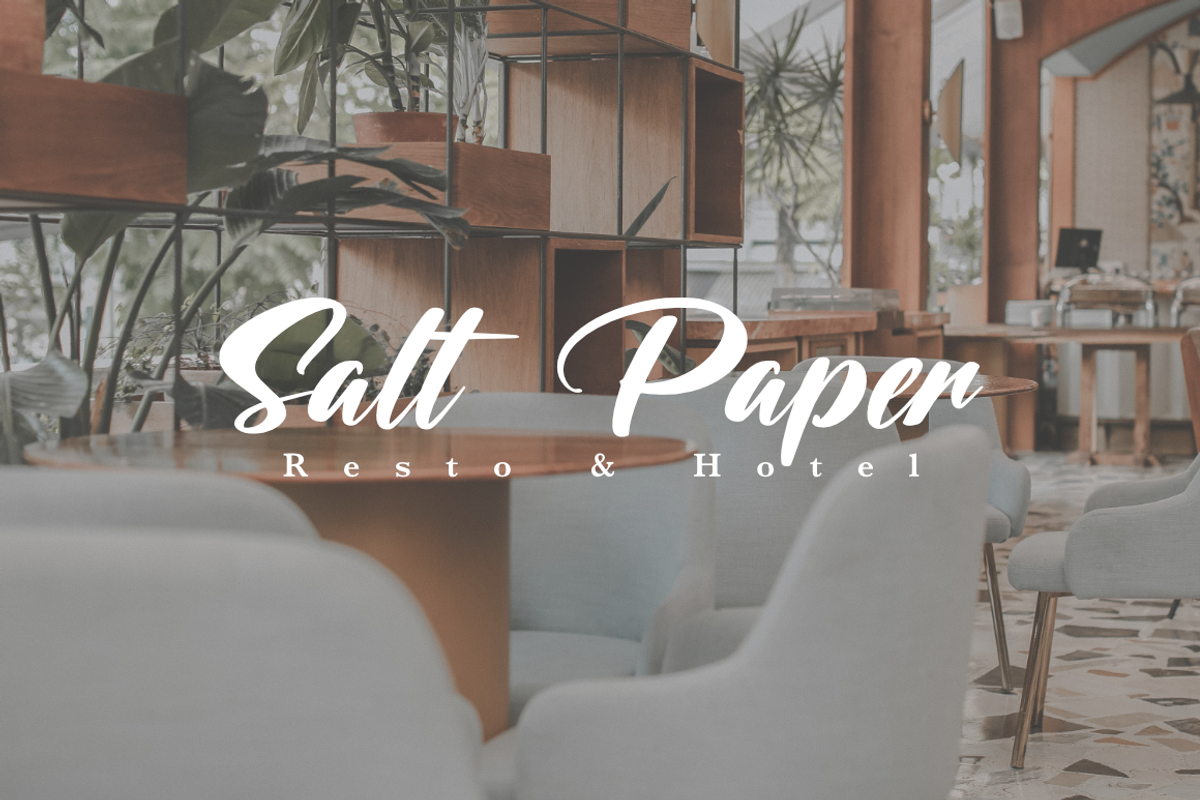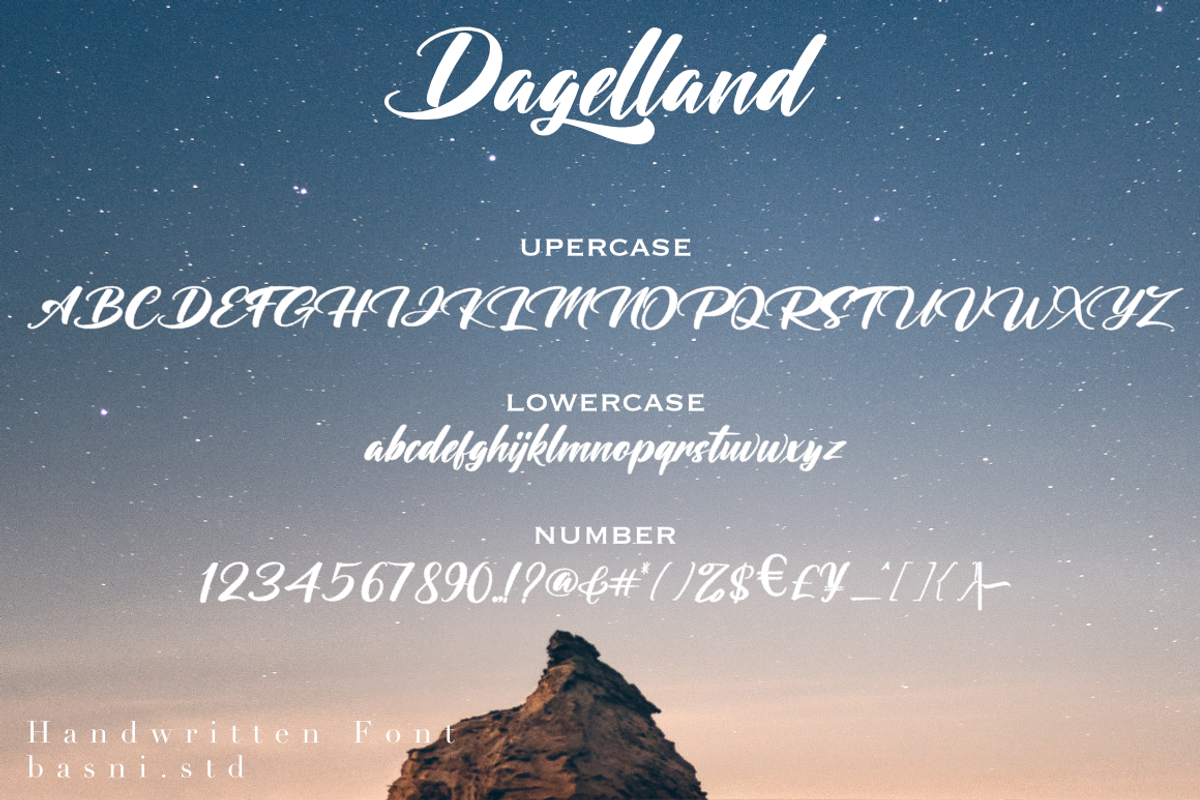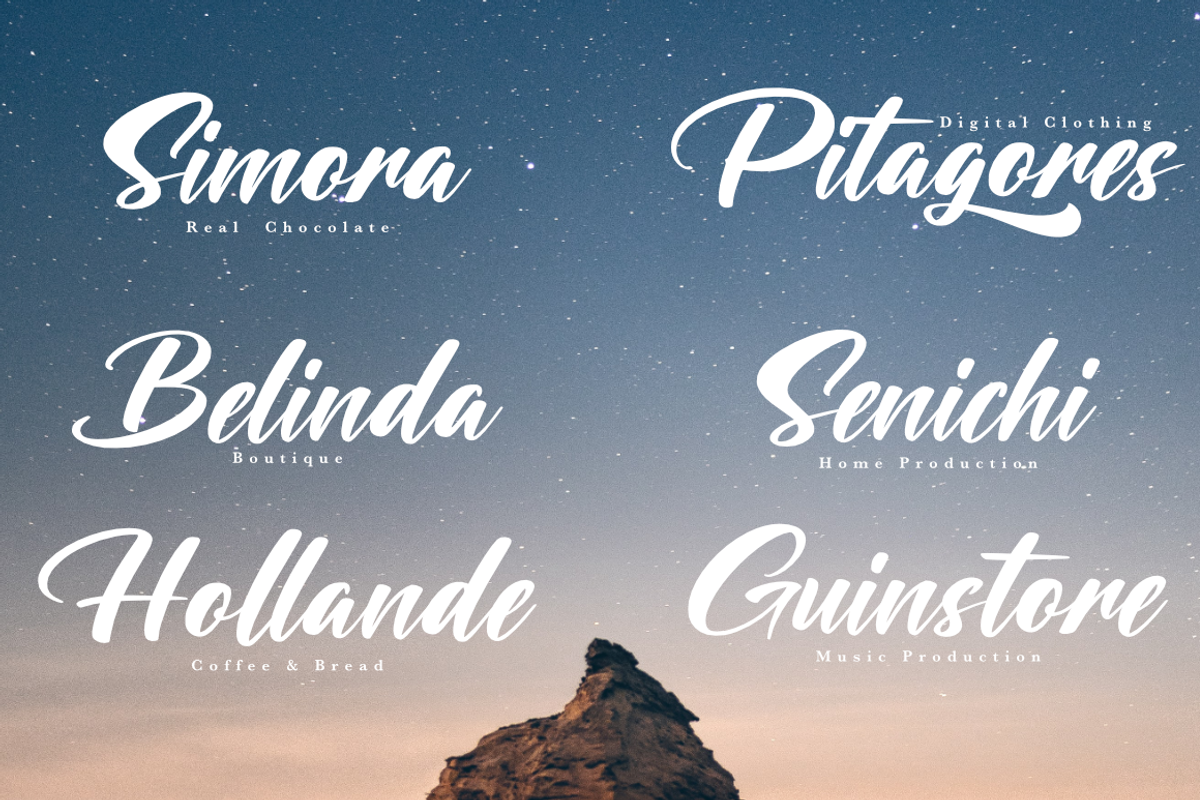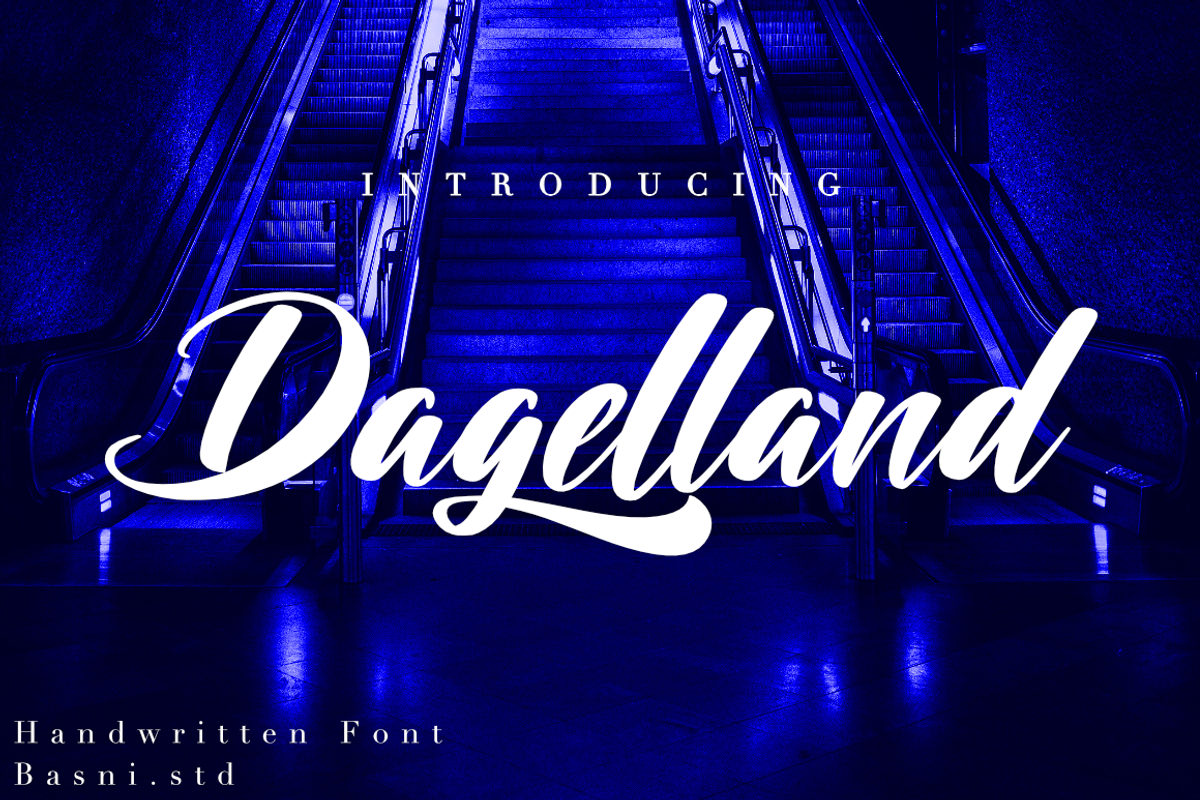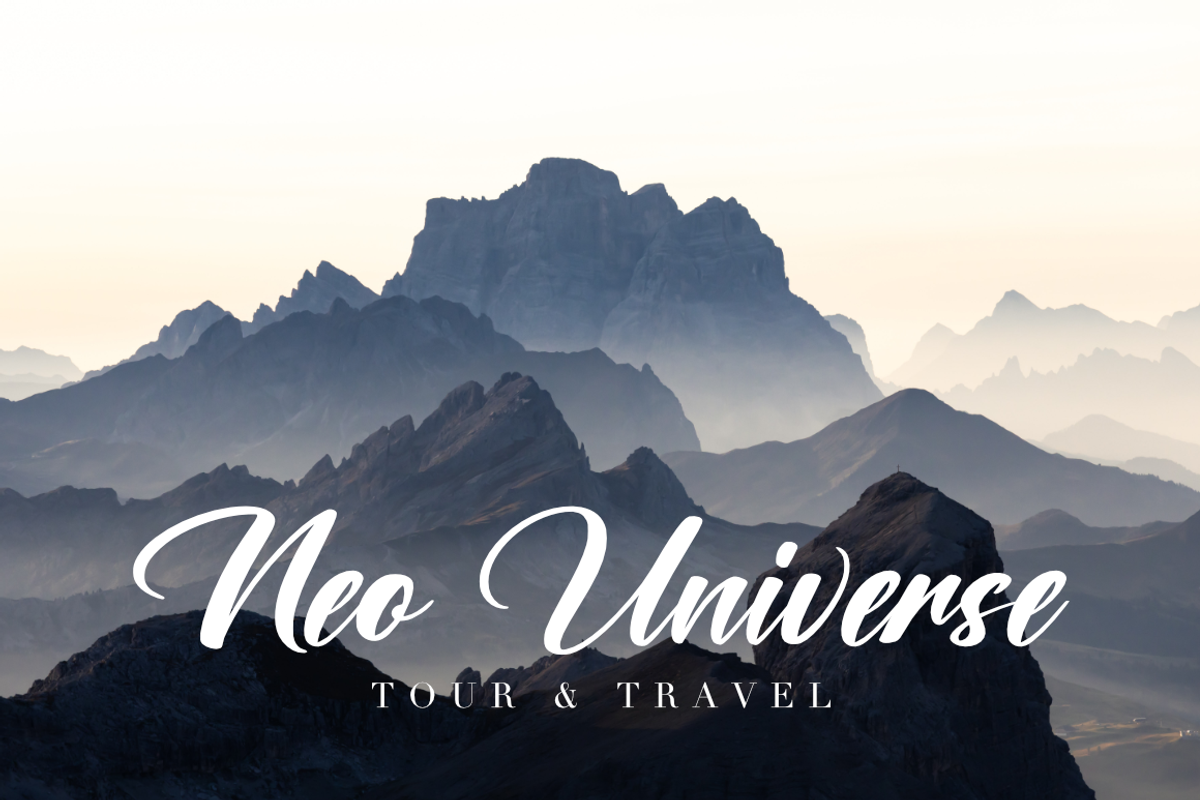
Dagelland A Handwritten Font
Introducing Dagelland , a Handwritten Font,
Dagelland is a naturaly handwritten font, created use digital brush, tihis font perfect for branding, websites, design invitation, and editorial designs. Includes all upper and lower case letters, multilingual support, punctuation. everything can be easily accessed using software that supports OpenType.